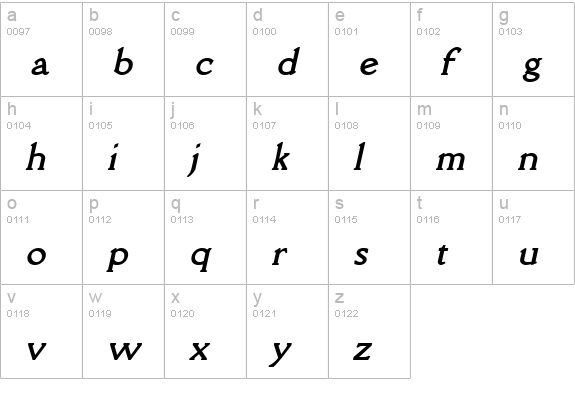
Introducing Rory BoldItalic font - a dynamic and eye-catching typeface that exudes confidence and style. With its bold strokes and playful italics, Rory BoldItalic is perfect for making a statement in headers, titles, and logos. The unique design of this font allows it to stand out in any project, whether it be print or digital. What's even better is that Rory BoldItalic is available for free download at FontsMarket.com, making it accessible to all designers and creatives looking to add a touch of boldness to their work. Don't miss out on this opportunity to enhance your designs with this versatile and striking typeface. Download Rory BoldItalic today and let your creativity shine!